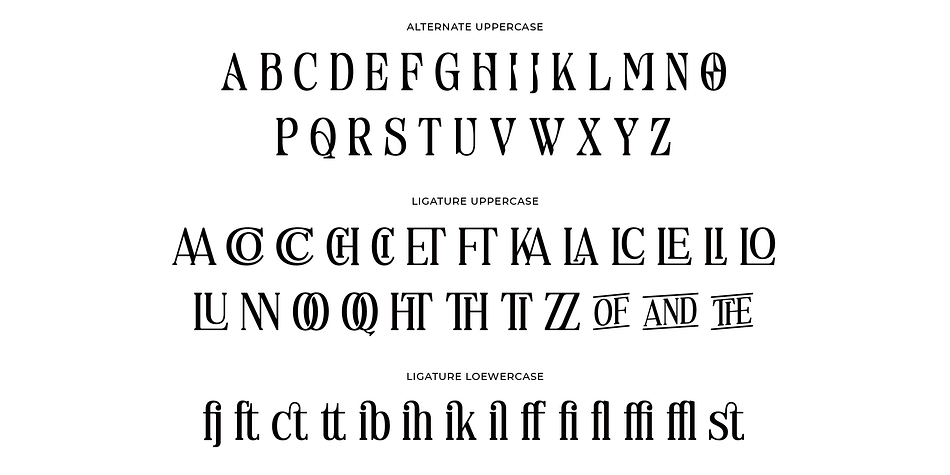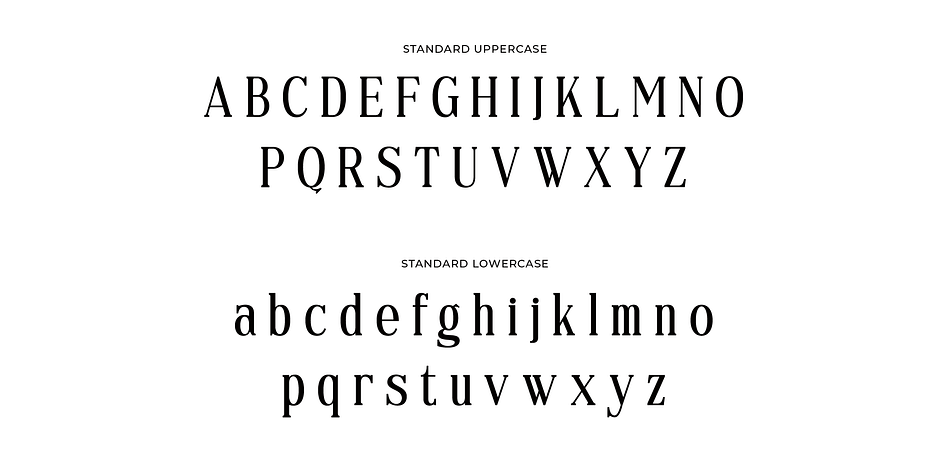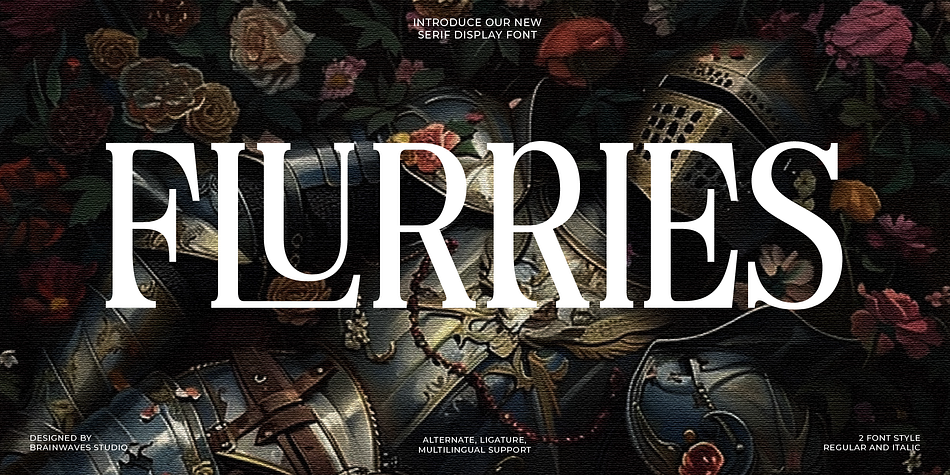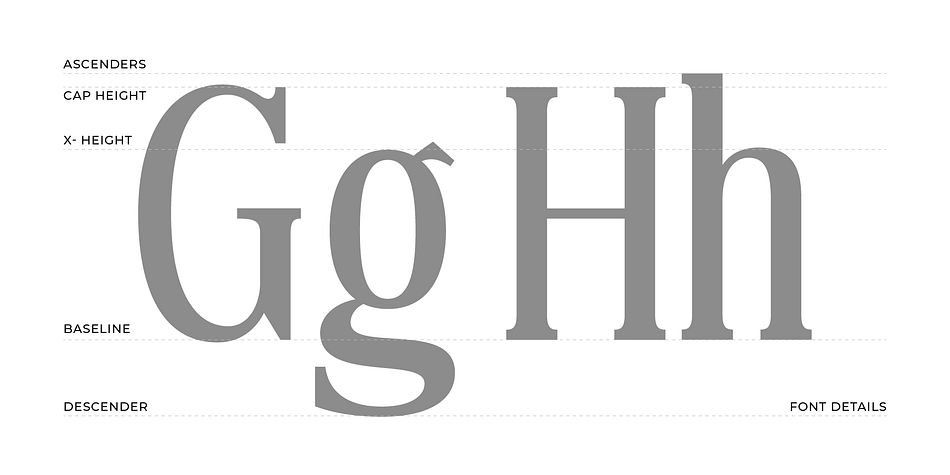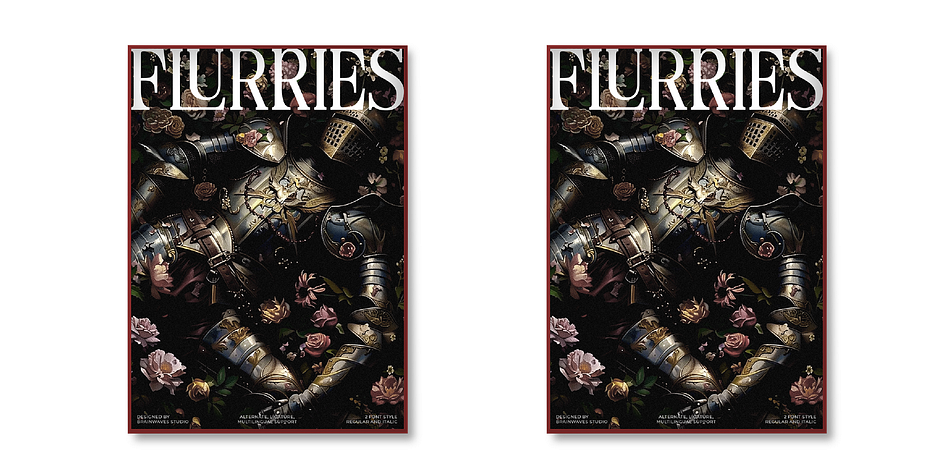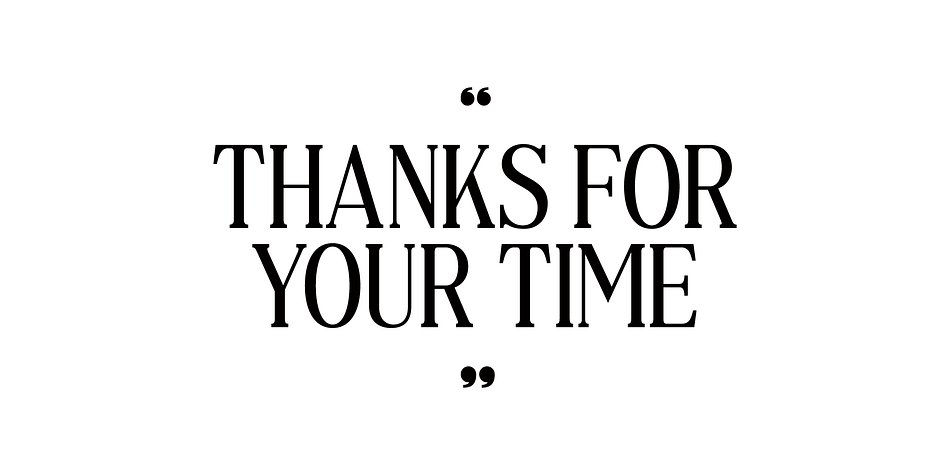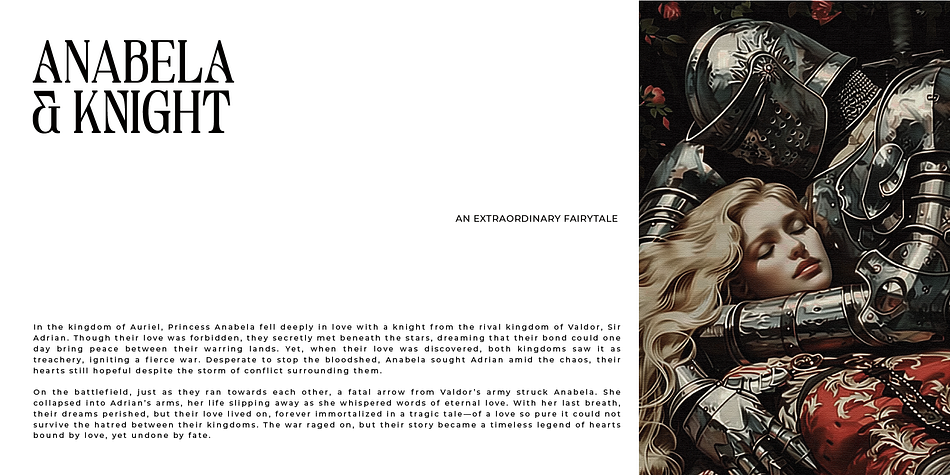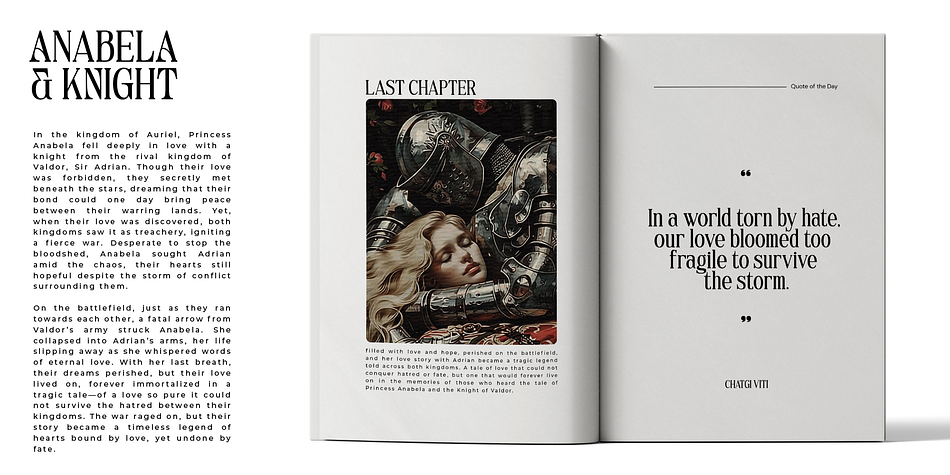
FLURRIES
FLURRIES is a serif font family. This typeface has two styles and was published by Brainwaves Studio.
Flurries is a modern serif font that strikes the perfect balance between boldness and elegance. Whether you’re designing for luxury brands, creating standout headlines, or adding a unique touch to your logos, Flurries has you covered.